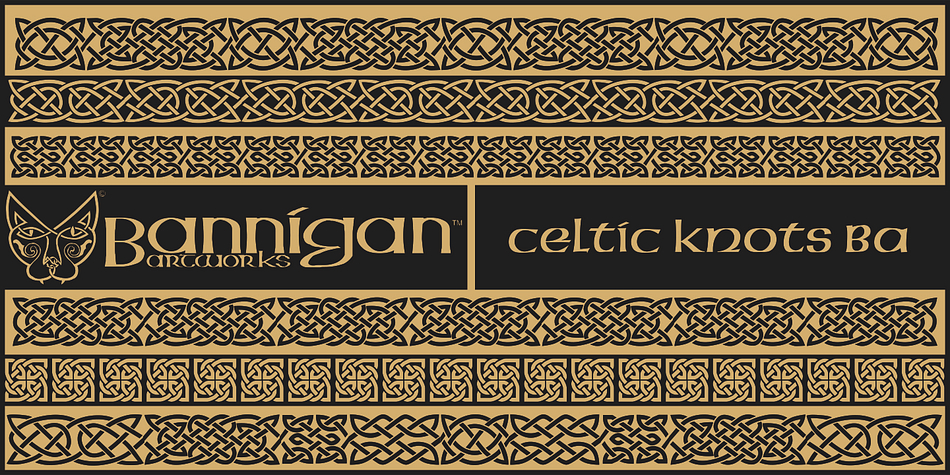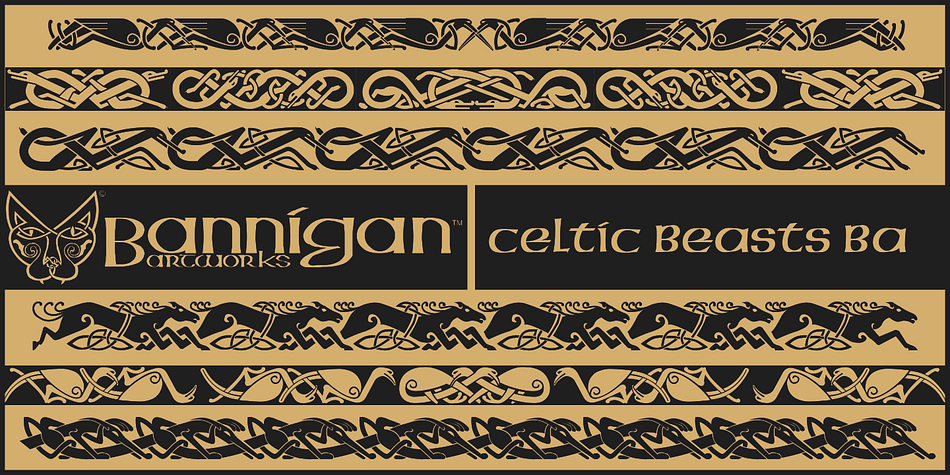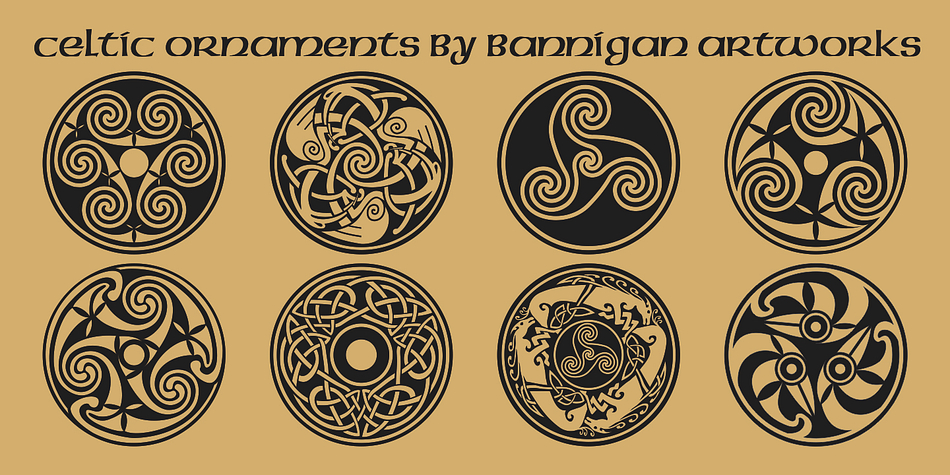
Designed by Todd Hallock, Celtic-BA is a dingbat, historical and art nouveau font family. This typeface has four styles and was published by Bannigan Artworks.
This is my interpretation of the writing in ancient Celtic manuscripts such as the Book of Kells.